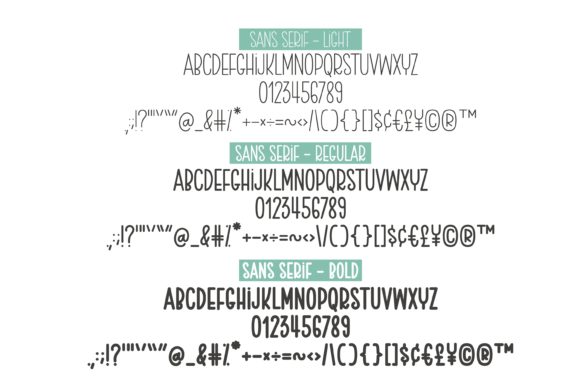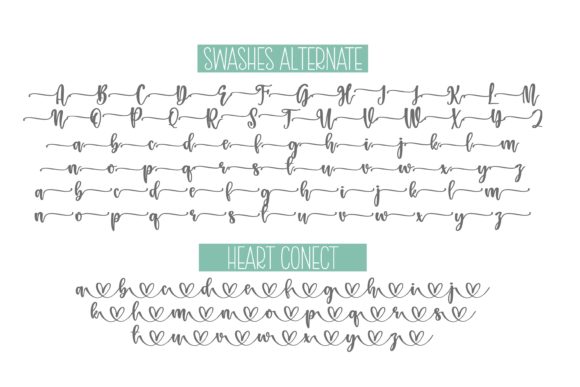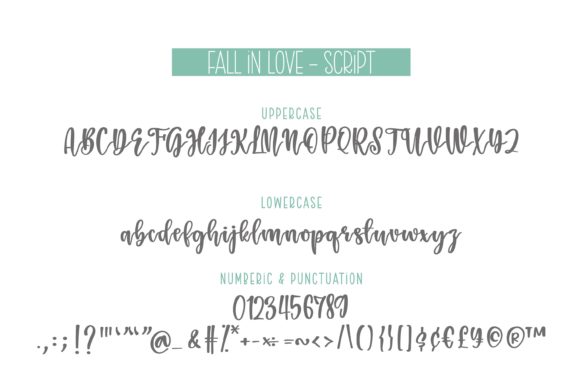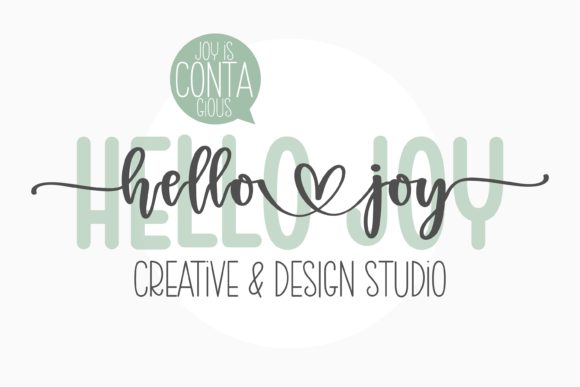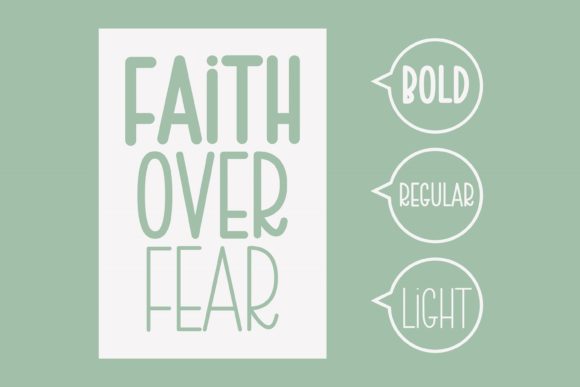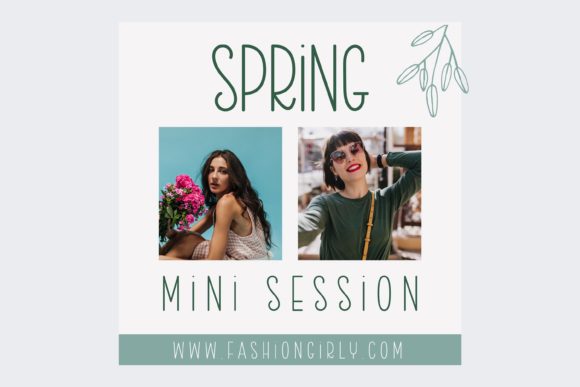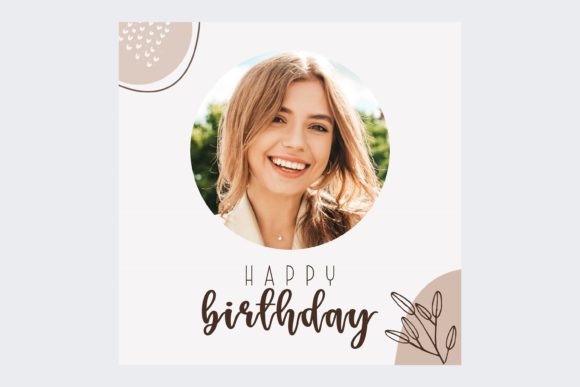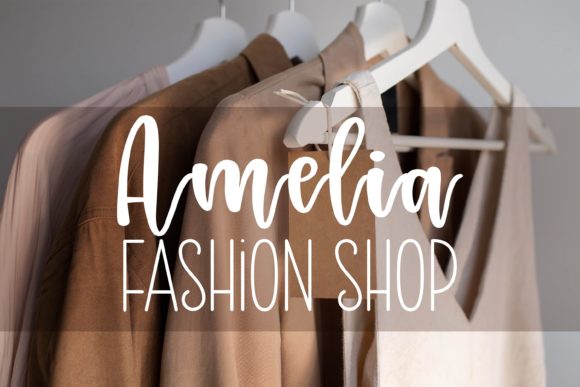
Fall in Love Font
Fall in Love is a duo-styled handwritten font that feels equally charming and delicate. This font is PUA encoded which means you can access all of the glyphs and swashes with ease! Fall In Love will turn any creative idea into a standout!